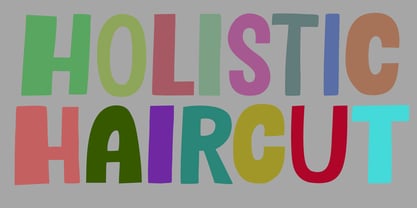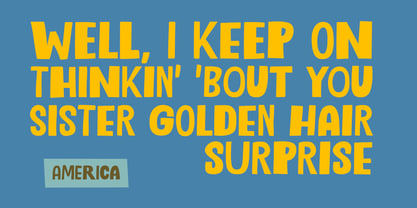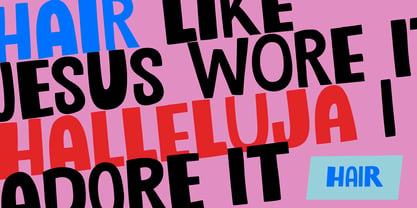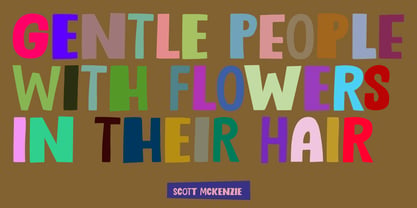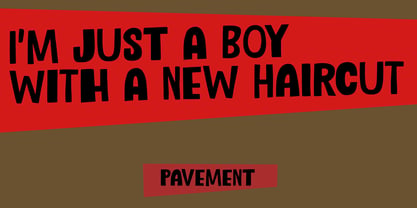
Holistic Haircut Pro
by Hanoded
The Holistic Haircut Pro Font Family was designed by David Kerkhoff and published by Hanoded. Holistic Haircut Pro contains 2 styles and family package options. More about this family
My son Sam turned 12 and all of a sudden he cares for his hairdo. It needs to be just so, not too long, not too short, with a lot of gel to hold it in place. ;-) He just had a haircut when I was creating this font, so now you know where the Haircut part comes from. The Holistic part is something that sort of sounded ok.
Holistic Haircut is a nice, handmade display font. It comes with wider and narrower glyphs for the upper and lower case AND a set of alternates that likes to party with the rest.
Hanoded is run by Dutchman David Kerkhoff. His fonts are a mishmash of styles, as he just creates whatever pops into his head. You will find a lot of brush fonts in his collection, as his favourite tools are brushes and Chinese ink, with cartoon style fonts and script fonts complementing his repertoire. Aside from making fonts, David occasionally guides tours in far-flung places, renovates his '30's house and tries reasoning with his wife and (teenage) kids. Not an easy task!